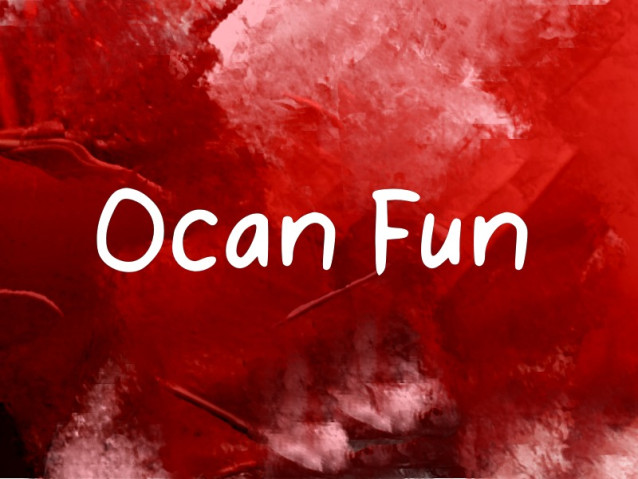
Ocan Fun Font
Ocan Fun Font is a simple and friendly handwritten font. Its natural and unique style makes it incredibly fitting to a large pool of designs. The only limit is your imagination!